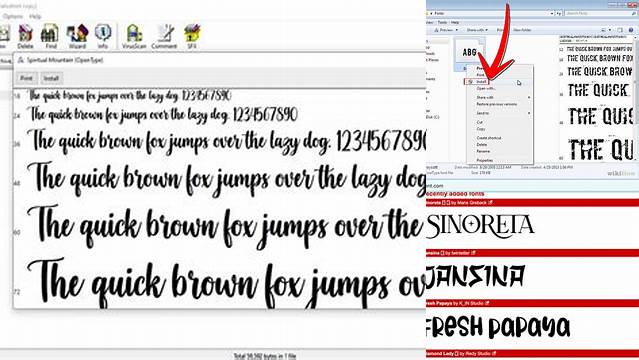
Download Fonts For Word: Easy Guide
Hey guys! Ever felt like your Word document is screaming for a makeover? Maybe the default fonts are just not cutting it anymore, or you're looking to add a unique flair to your projects? Well, you've come to the right place! In this guide, we'll dive deep into how to download fonts for Word, making your documents visually stunning and uniquely yours. Whether you're crafting a resume, designing a brochure, or just want to spice up your everyday writing, having the right fonts at your fingertips can make all the difference. Let’s get started and transform your Word documents from bland to grand!
Why Bother Downloading Fonts?
Before we jump into the how-to, let’s talk about the why. Why should you even bother downloading fonts when Word comes with a decent selection already? Here's the lowdown:
- Uniqueness and Branding: In a world saturated with generic content, standing out is crucial. Custom fonts allow you to create a unique visual identity for your brand or personal projects. Imagine using a specific font for your business cards, website, and documents – it reinforces your brand and makes you instantly recognizable. This is especially important for businesses aiming to establish a strong brand presence.
- Enhanced Readability: Sometimes, the default fonts just don't cut it when it comes to readability. Different fonts are designed with specific purposes in mind. Some are great for headlines, while others are perfect for body text. Choosing the right font can significantly improve the reading experience, making your content more engaging and accessible. For instance, a clear, sans-serif font like Open Sans can make a lengthy document much easier on the eyes.
- Creative Expression: Fonts are more than just letters; they're a form of art. They can convey emotions, set the tone, and add personality to your writing. Want to create a playful invitation? There's a font for that. Need to draft a formal letter? There's a font for that too. Exploring different fonts opens up a world of creative possibilities, allowing you to express yourself in ways you never thought possible. Think of fonts as the spices in your design kitchen – they can completely transform the flavor of your document.
- Professionalism: Using unique and appropriate fonts can significantly enhance the perceived professionalism of your documents. A well-chosen font can convey attention to detail and a sense of sophistication. This is particularly important for resumes, cover letters, and business proposals, where first impressions matter. Using a modern, clean font can make your document look polished and up-to-date, giving you a competitive edge.
So, whether you're aiming for uniqueness, readability, creative expression, or professionalism, downloading fonts is a game-changer. It empowers you to take control of your document's visual appearance and make a lasting impression.
Finding the Perfect Fonts
Alright, now that you're convinced about the why, let's move on to the where. Finding the perfect fonts can feel like searching for a needle in a haystack, but don't worry, I've got your back. Here are some fantastic resources to get you started:
- Google Fonts: This is a goldmine, guys. Google Fonts offers a vast library of free, open-source fonts that are incredibly easy to use. The best part? They’re web-friendly, so you can use them for both your documents and your website. The interface is super intuitive, allowing you to preview fonts, filter by categories (serif, sans-serif, handwriting, etc.), and even test them out with your own text. Plus, Google Fonts ensures that the fonts are optimized for readability and performance, so you don't have to worry about them slowing down your website or looking pixelated in your documents. With hundreds of fonts to choose from, you're sure to find something that fits your style and needs. Don't miss out on popular choices like Roboto, Open Sans, and Montserrat—they're classics for a reason!
- Adobe Fonts (formerly Typekit): If you're an Adobe Creative Cloud subscriber, you've already got access to Adobe Fonts. This service boasts a massive collection of high-quality fonts that are seamlessly integrated with Adobe apps like Photoshop, Illustrator, and, of course, Word. The fonts are professionally designed and curated, ensuring top-notch quality and aesthetic appeal. Adobe Fonts also offers advanced features like font pairing suggestions, making it easier to create visually harmonious designs. The subscription model means you always have access to the latest fonts, and the hassle of managing licenses is taken care of. If you're serious about design and typography, Adobe Fonts is definitely worth considering.
- DaFont: DaFont is a treasure trove of fonts, offering everything from quirky and whimsical designs to elegant and sophisticated styles. While many fonts on DaFont are free, it's essential to check the license before using them for commercial purposes. The site's search and categorization features make it easy to find what you're looking for, and the user comments can provide valuable insights into the font's quality and usability. DaFont is a great place to discover unique and unconventional fonts that you won't find anywhere else. Just remember to respect the font creators' licenses and give credit where it's due.
- Font Squirrel: If you're looking for free fonts that are also licensed for commercial use, Font Squirrel is your go-to resource. They carefully curate their collection to ensure that all fonts are high-quality and legally safe to use in your projects. Font Squirrel also offers a handy Font Identifier tool that can help you identify a font from an image, which is incredibly useful when you need to match a specific font style. The site's user-friendly interface and clear licensing information make it a favorite among designers and creatives who want to avoid legal headaches. Plus, they regularly update their collection with fresh and exciting fonts, so there's always something new to discover.
So, there you have it, guys! Downloading and managing fonts for Word doesn't have to be a daunting task. With the right resources and a little know-how, you can transform your documents into visually stunning masterpieces. Whether you're aiming for uniqueness, readability, or just want to add a personal touch, exploring the world of fonts opens up a whole new realm of creative possibilities. So go ahead, experiment with different fonts, and let your imagination run wild. Happy designing!